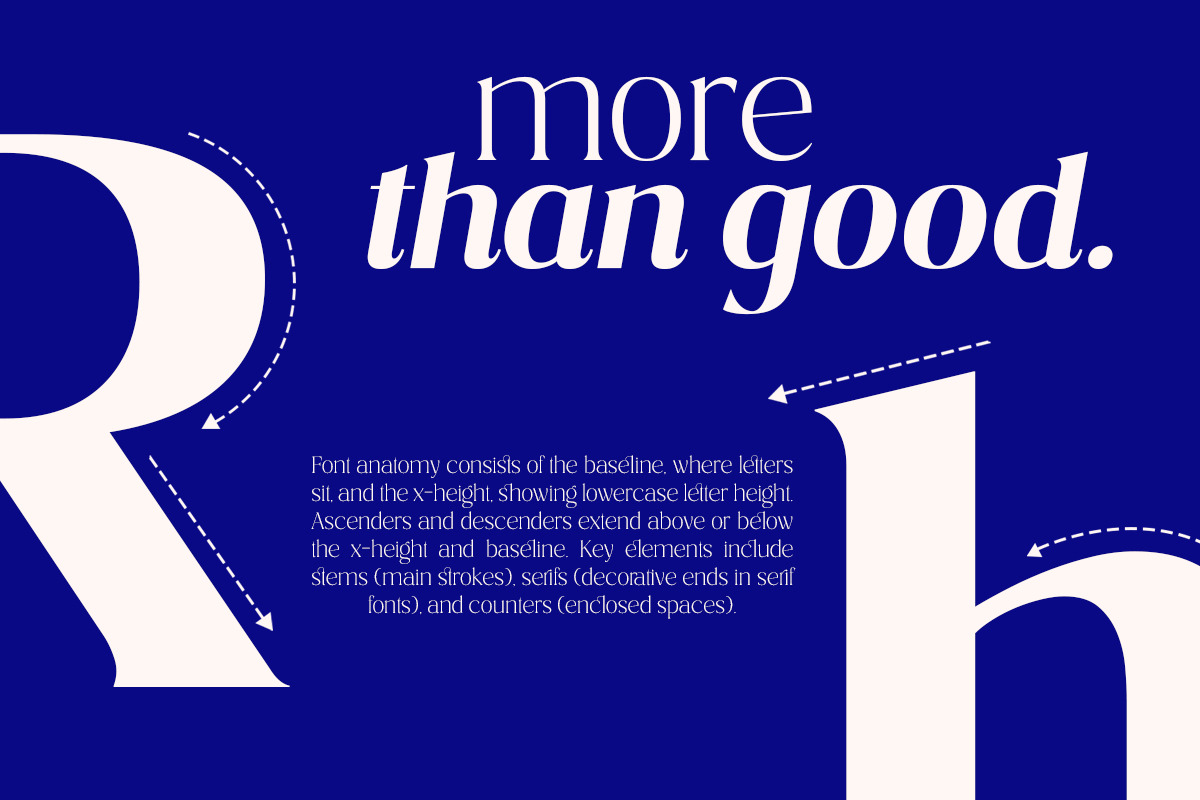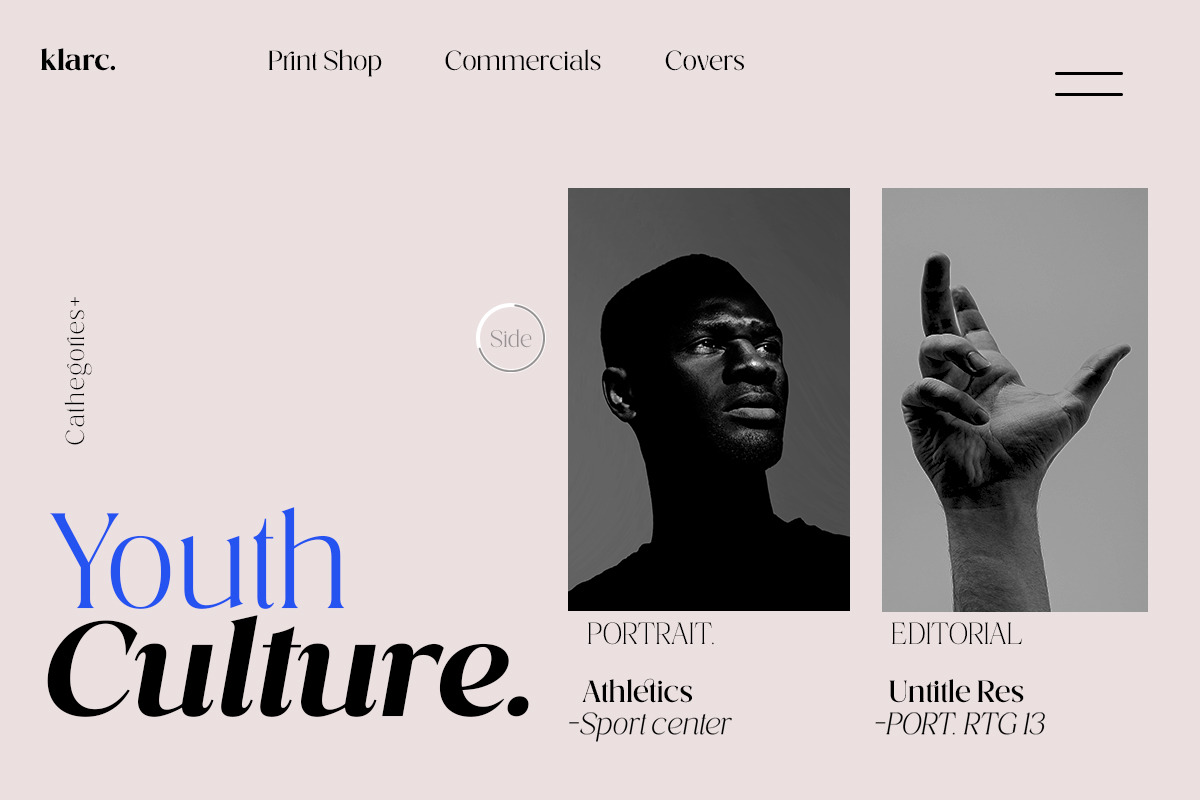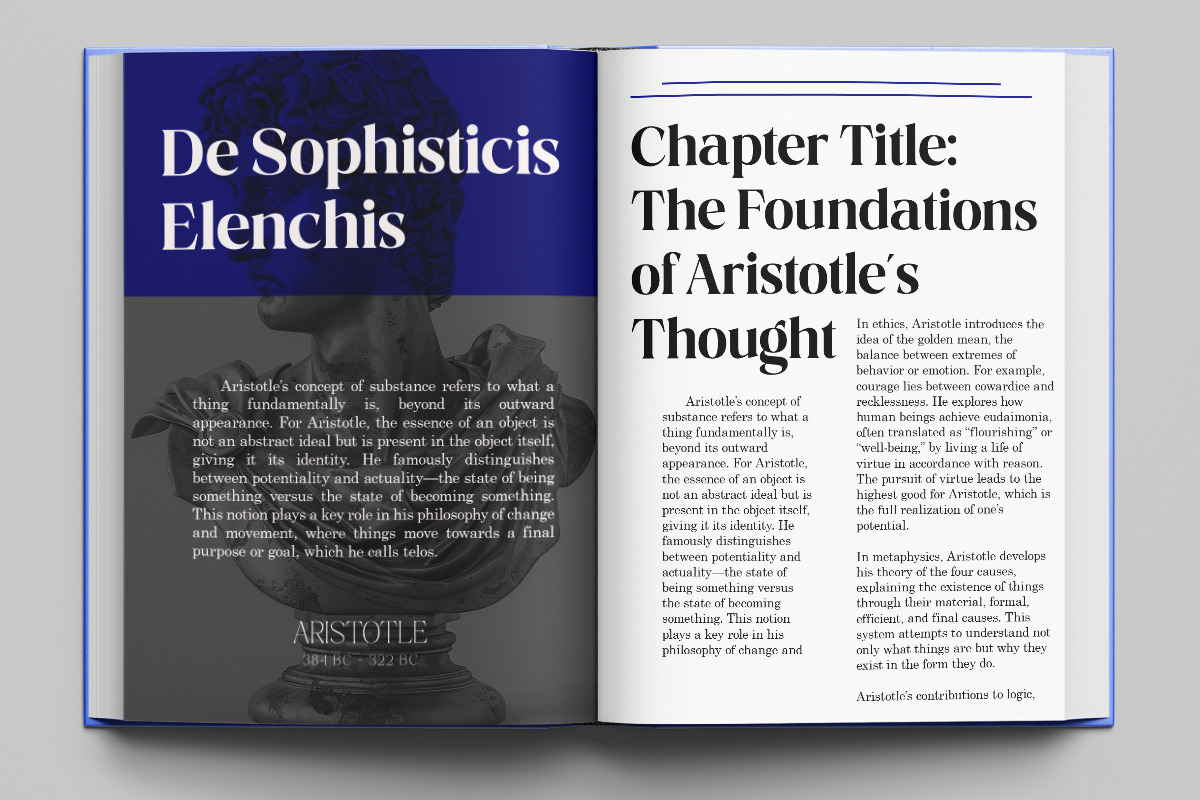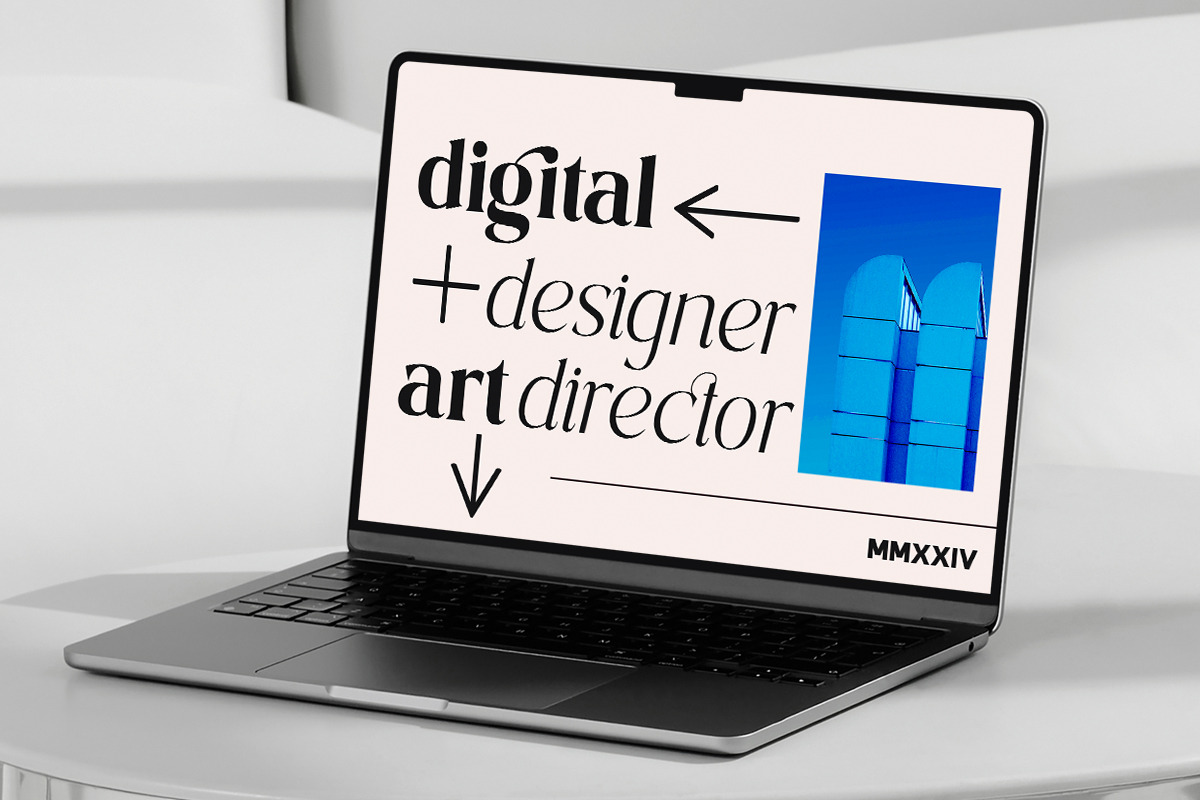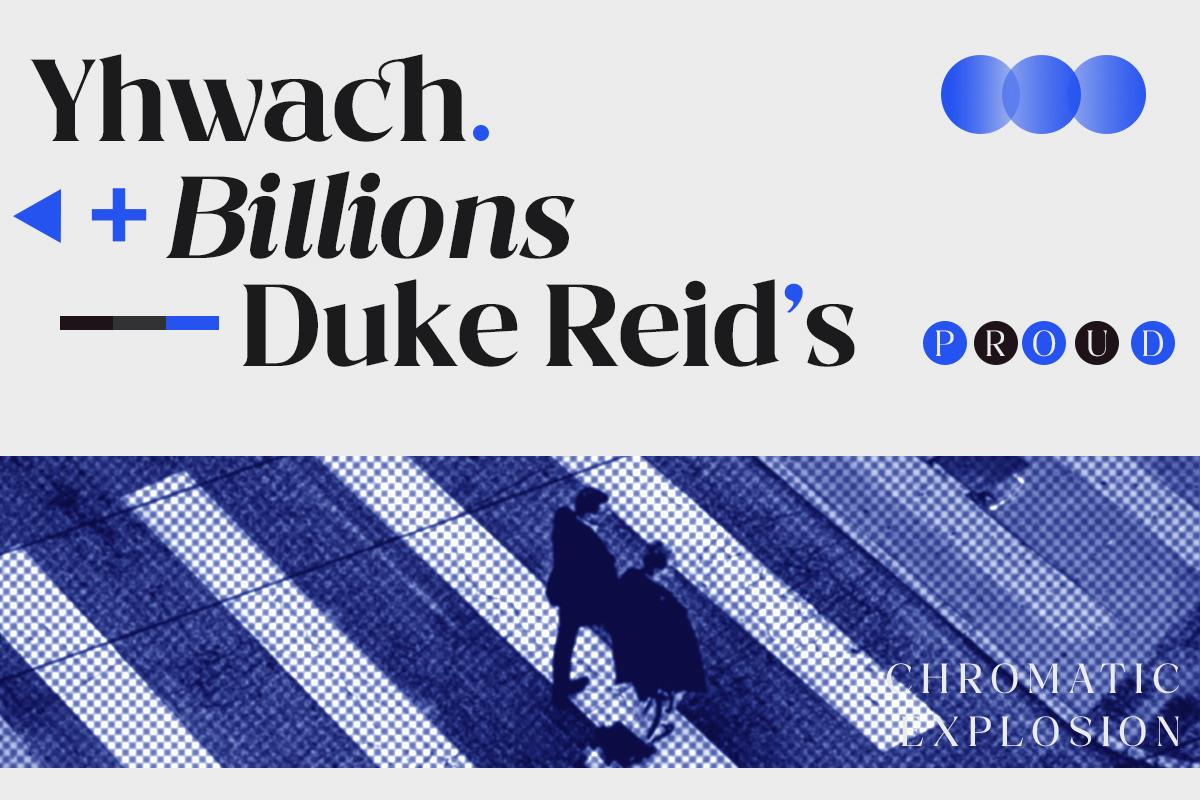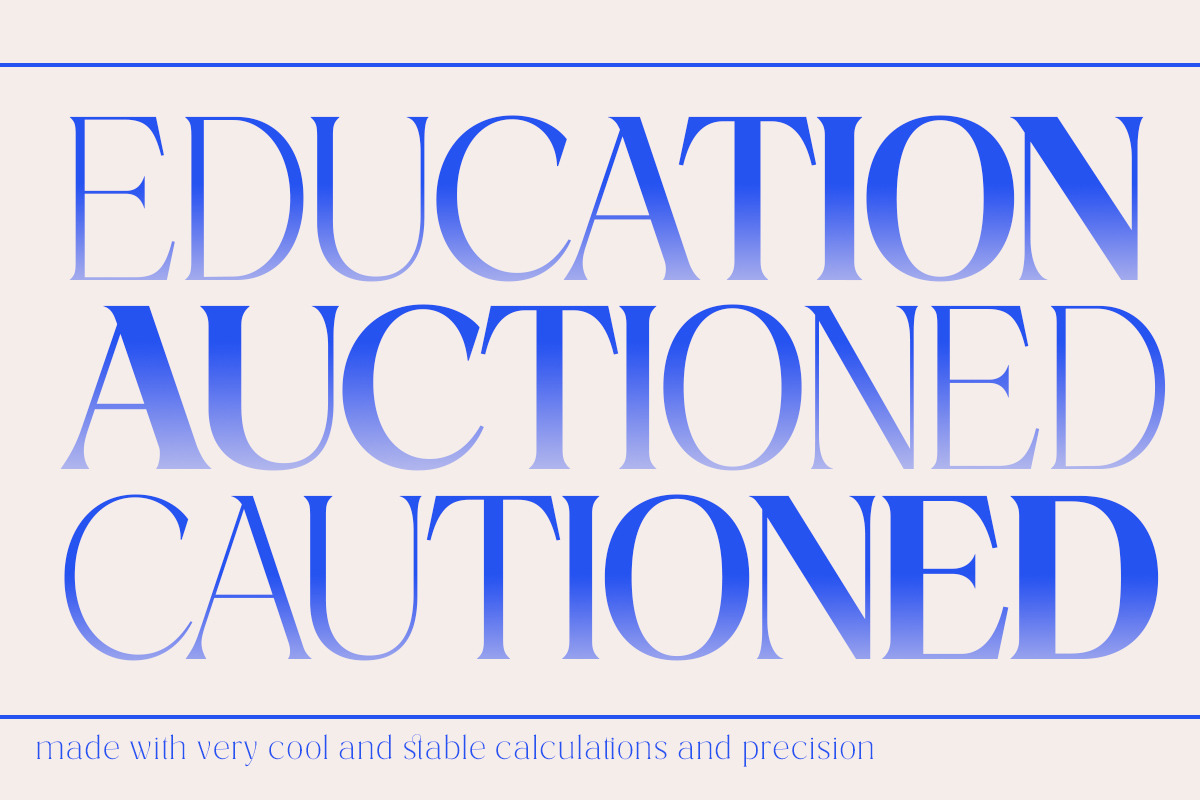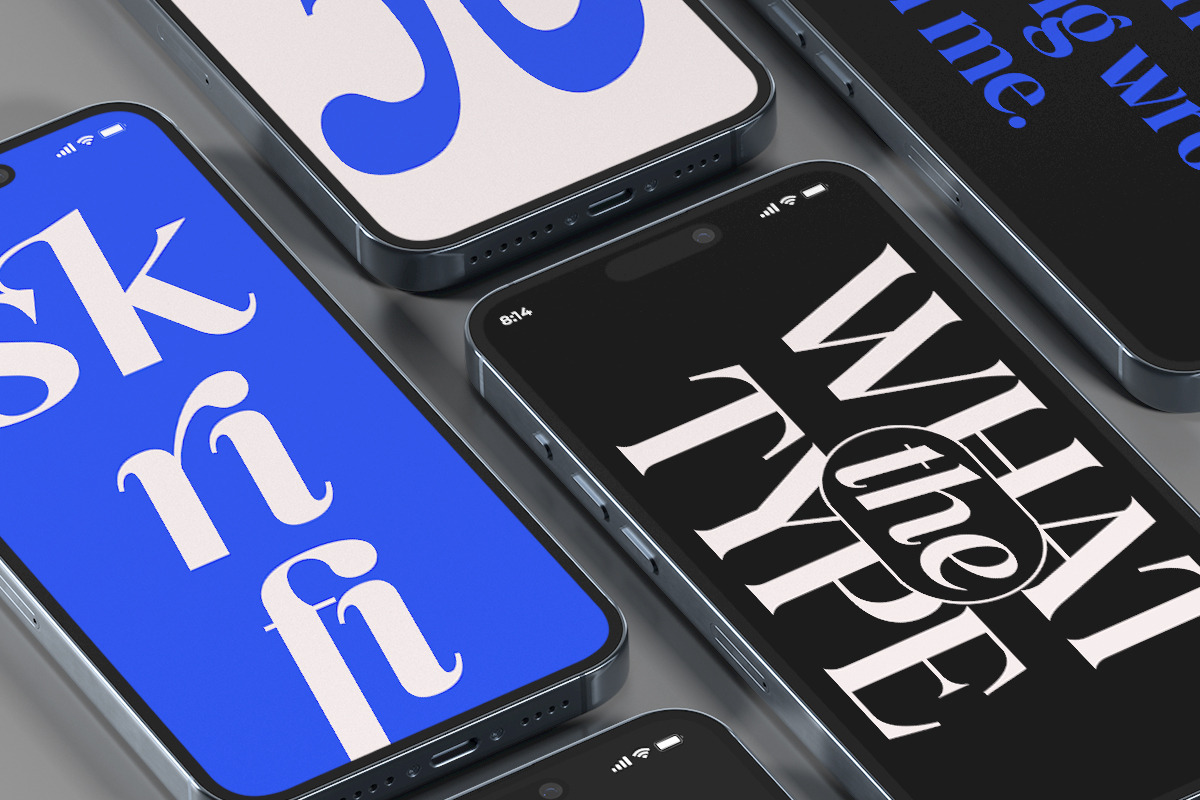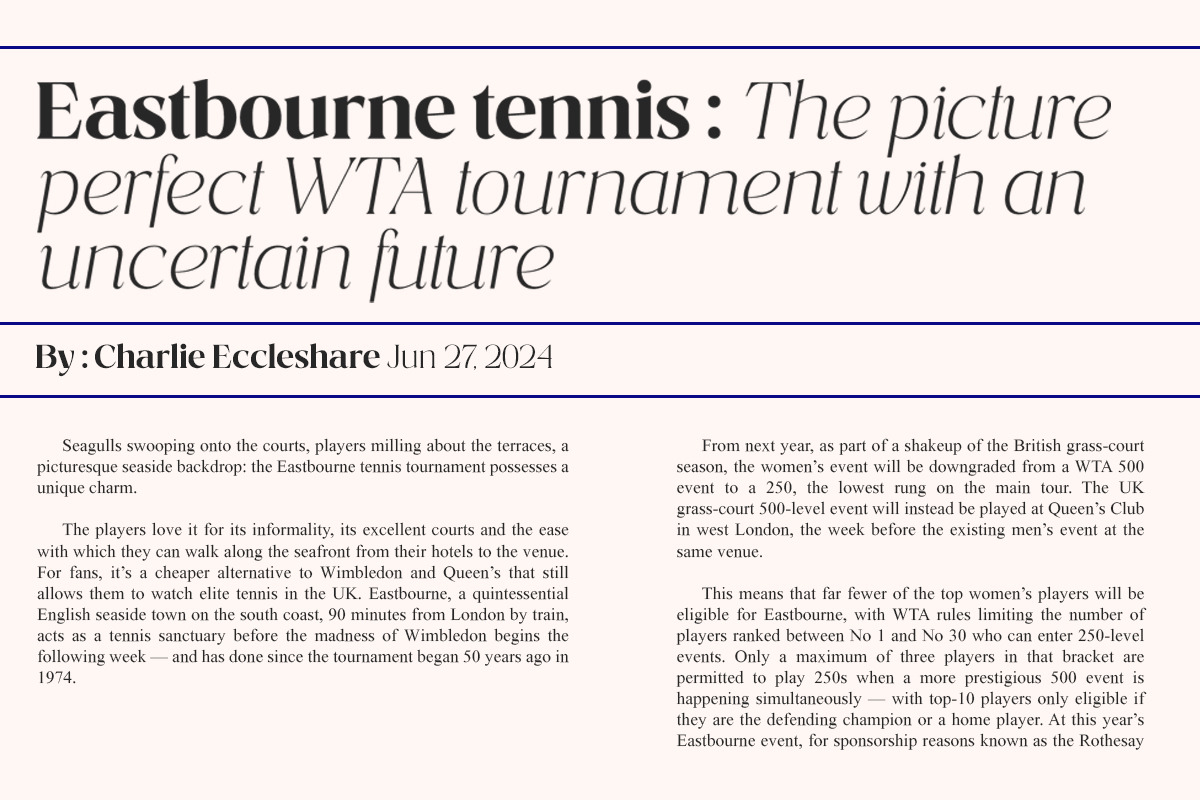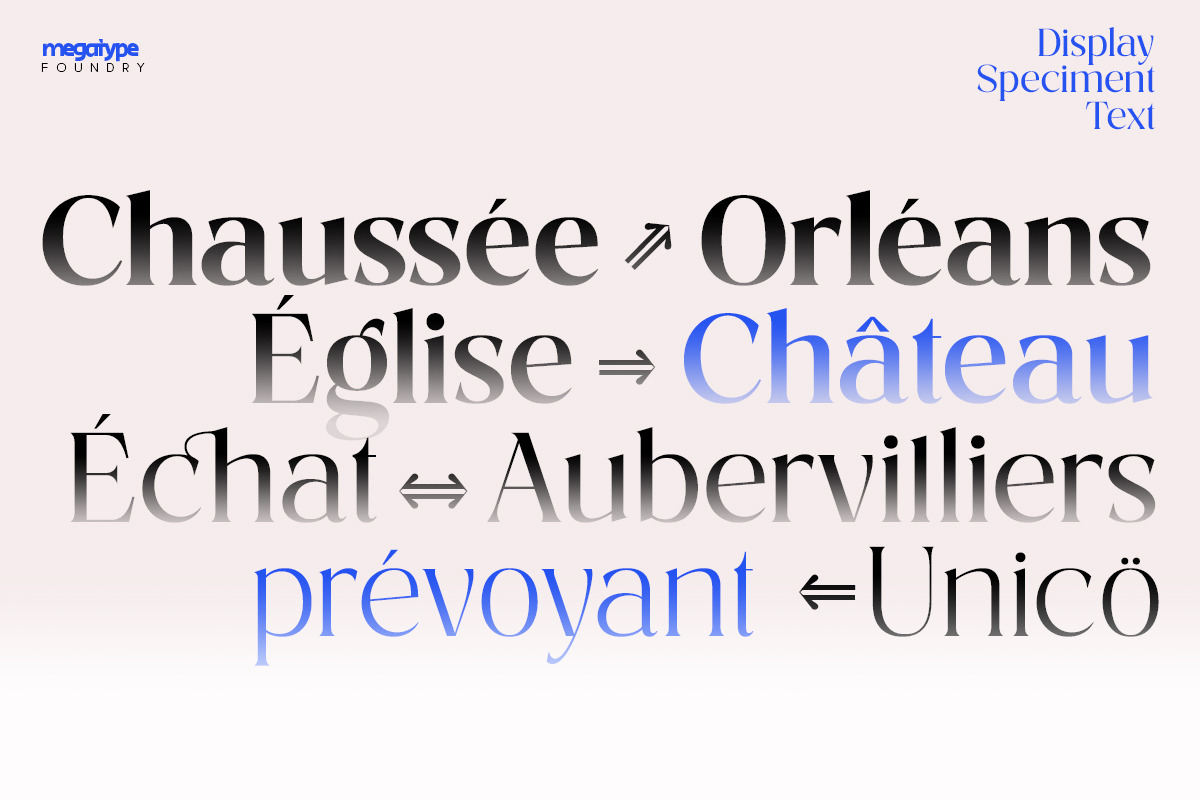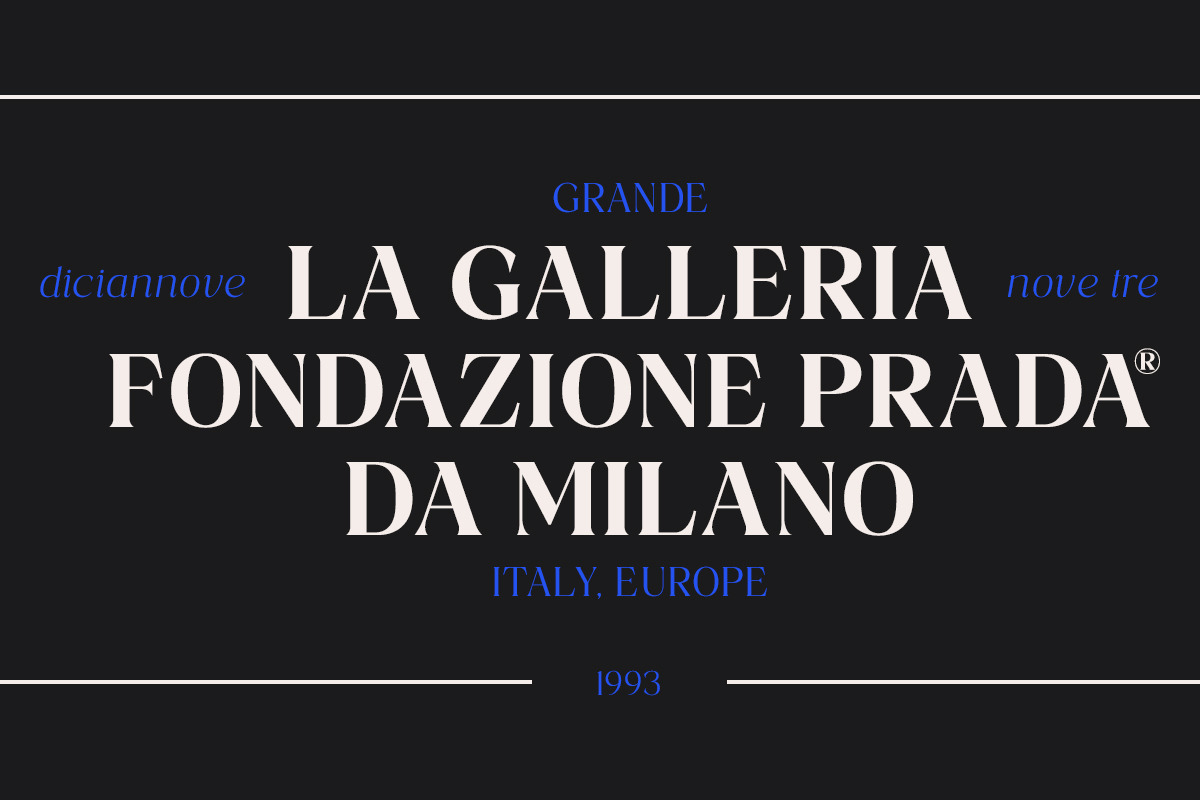
Costaline is a harmonious and stylish contemporary serif typeface with a classic feel. Includes 18 Fonts, upright and italic, with weights ranging from thin to black. Natural curves, swollen stems and slants, grow with the character as the font weight increases. While thinner weights have lowered contrast and optical correction to create a warm and soft look. Featuring beautiful italics with perfectly matched weights. OpenType features allow for the application of typography such as ligatures and support for multiple languages.
Costaline also comes with two Variable Regular and Italic versions to make it easy for designers to explore and refine beautiful designs, revealing many visual nuances and hidden secrets.
Costaline is a perfect choice for your various design projects such as editorial design, headlines, branding projects, Logo design, packaging, magazine titles, advertisements, short or long texts, web design and more.